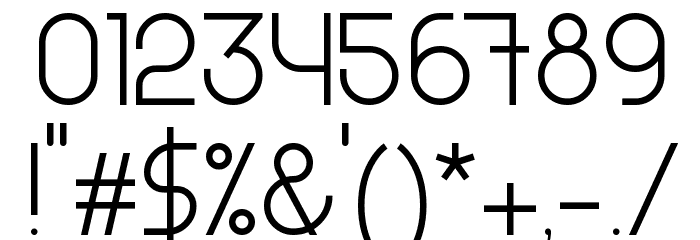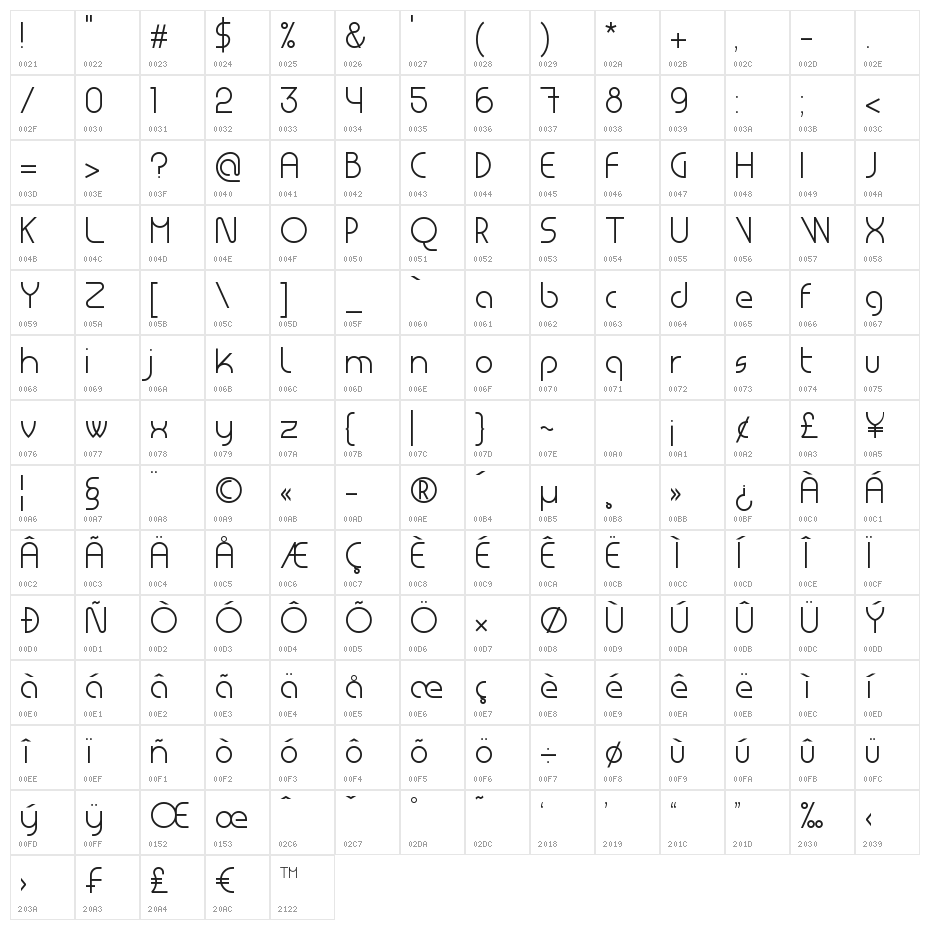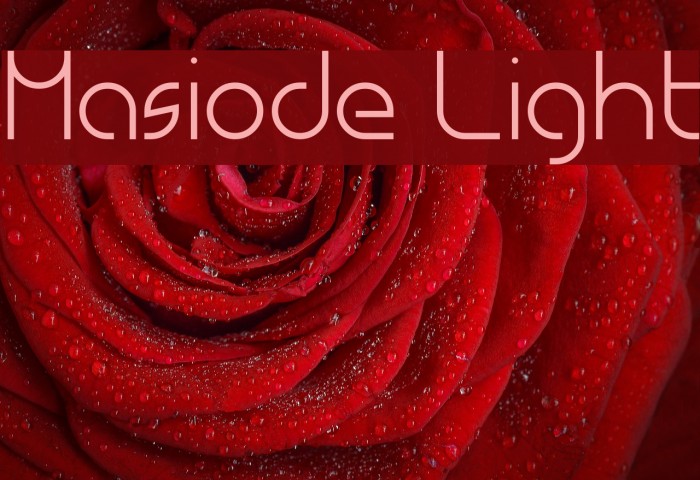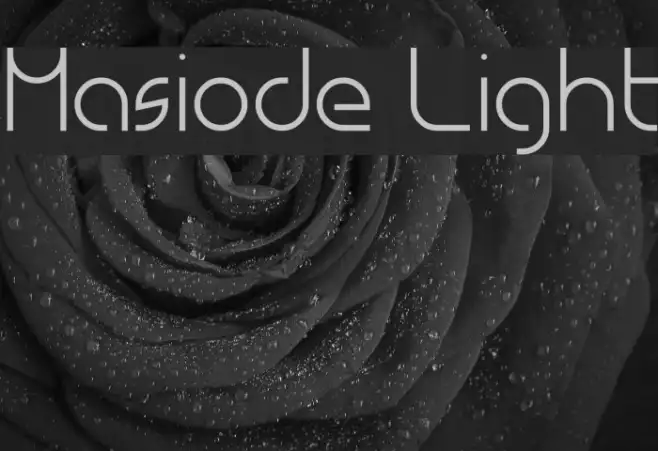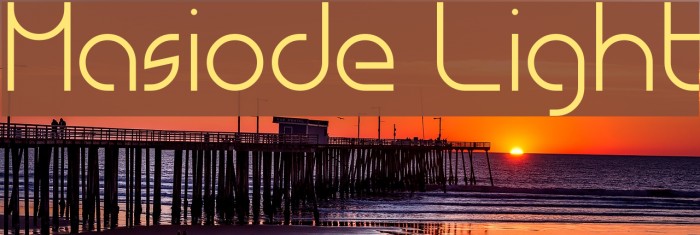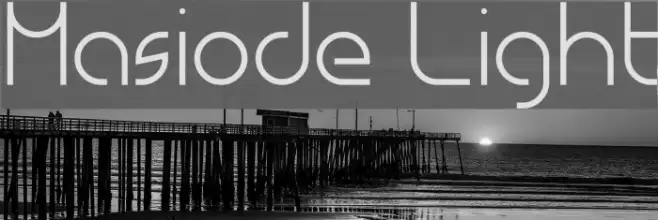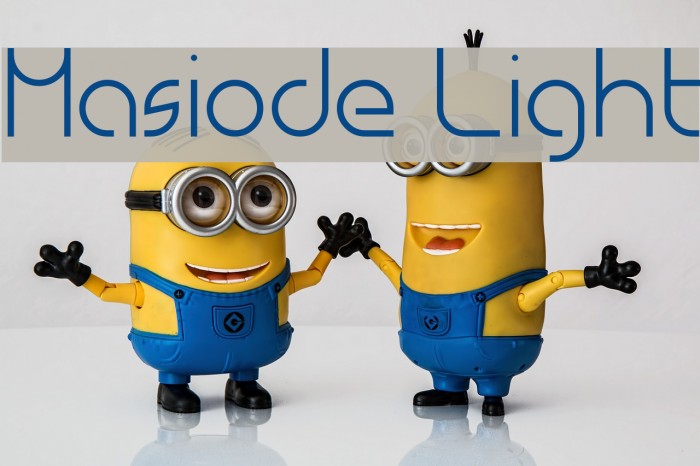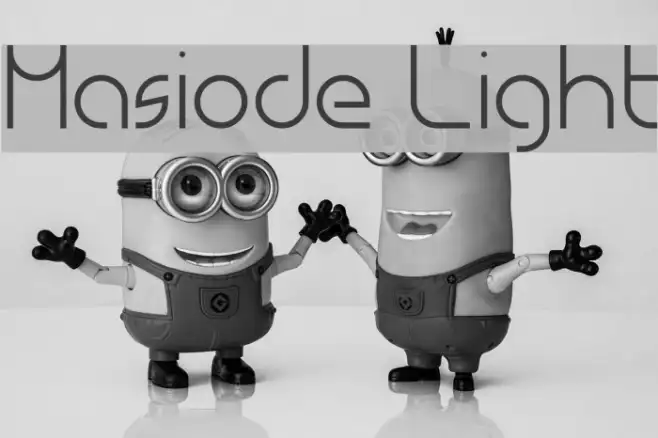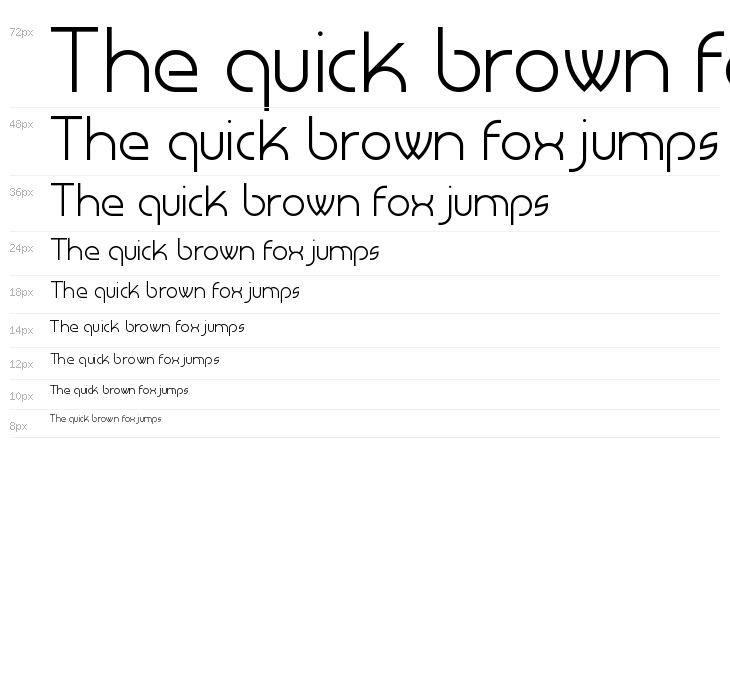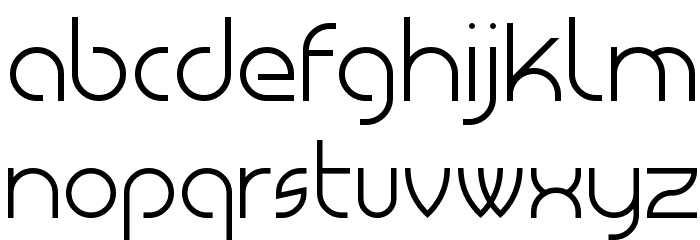
Masiode Light Font
Masiode Light Description
This font features a clean and modern sans-serif design with a geometric structure. The characters are crafted with consistent stroke widths, giving it a uniform appearance. The rounded edges and open counters contribute to its legibility and friendly aesthetic. The uppercase letters are bold and prominent, while the lowercase letters maintain a balanced and harmonious look. The numerals and special characters are designed to complement the overall style, making it versatile for various applications.